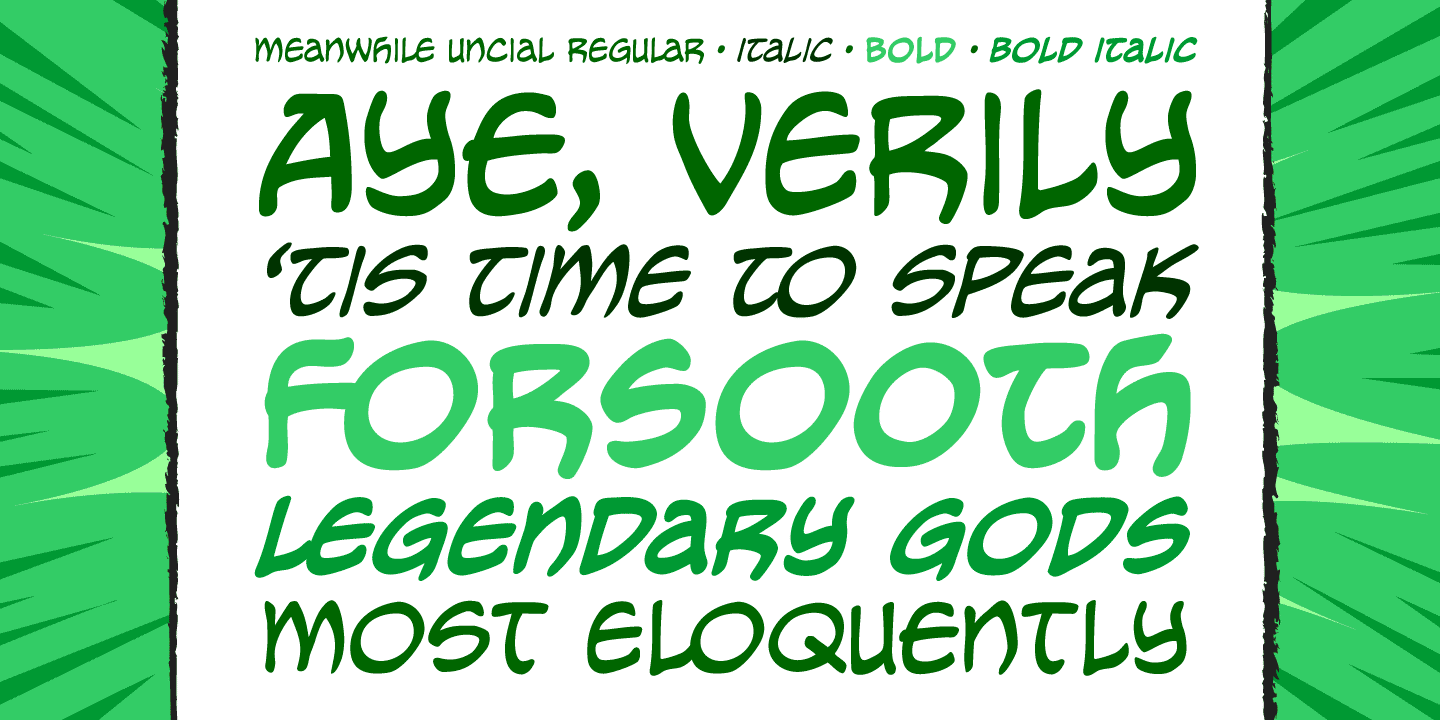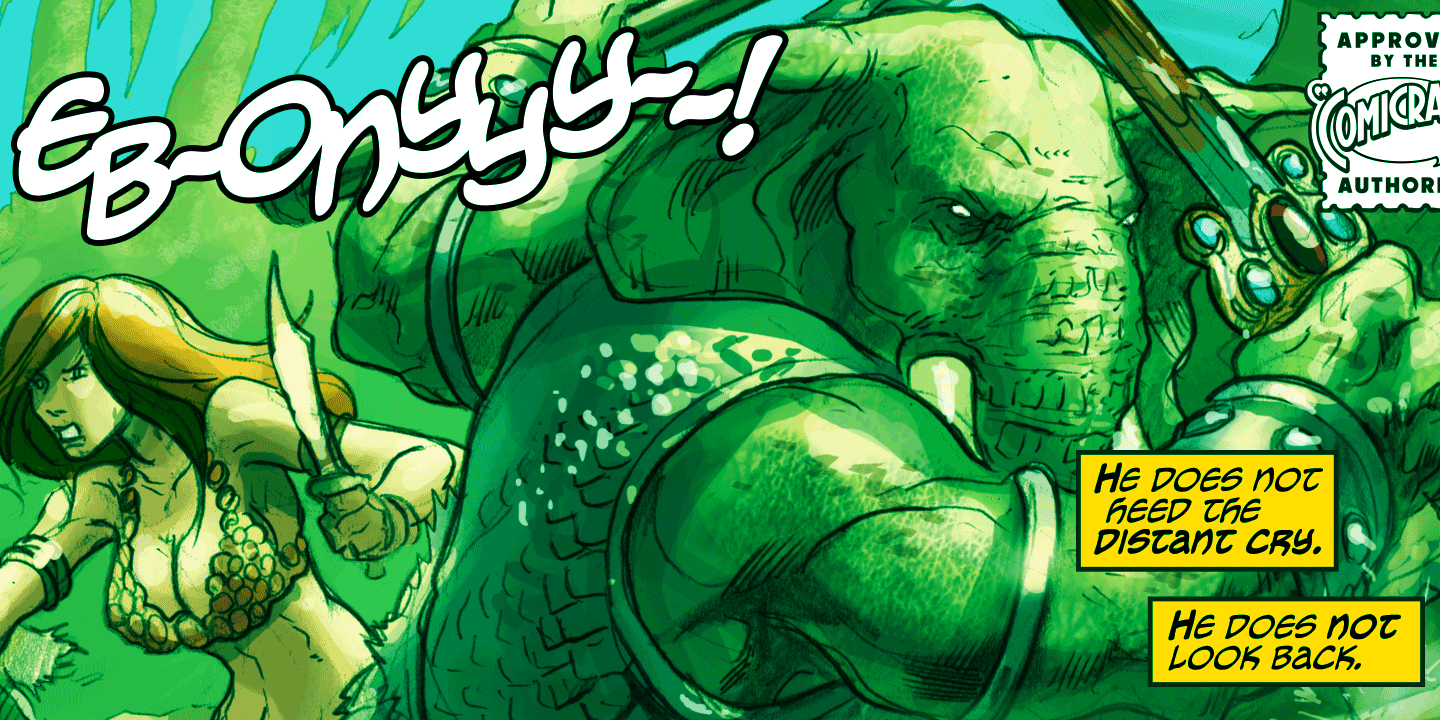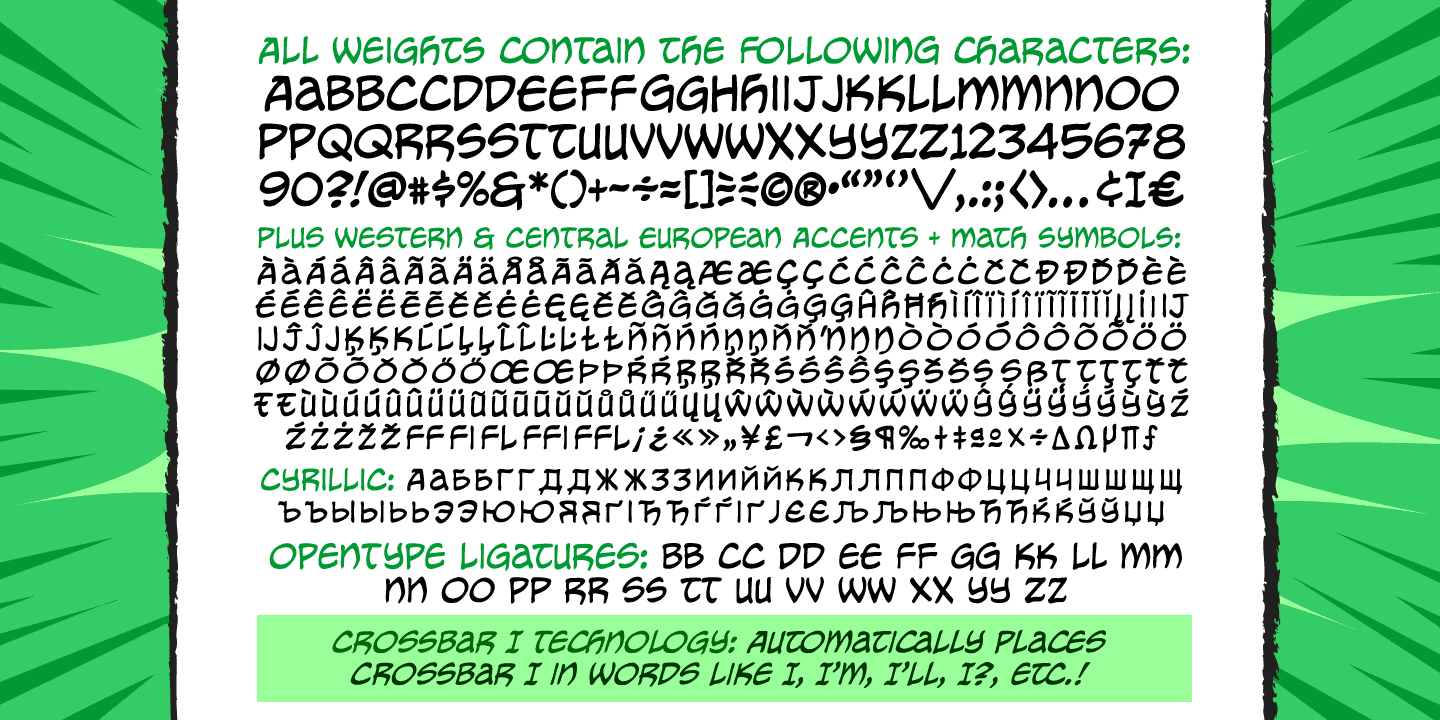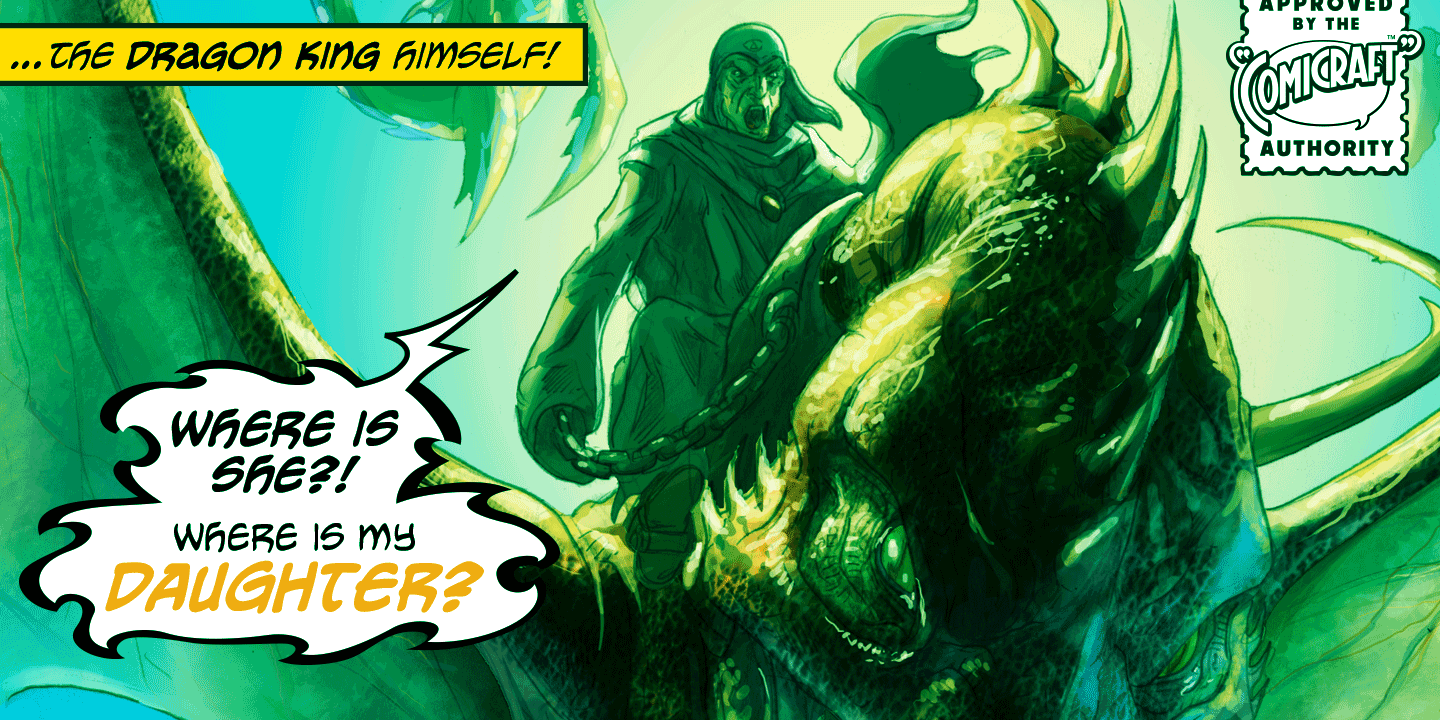
Meanwhile Uncial
Font Family by Comicraft Fonts
Buy NowAye! Verily ‘twould seem 'tis time for thee to speak in the majuscule language of legendary gods! Yea, thou shalt speak most eloquently in the style and manner of many a pseudo-Shakespearian Bard. Forsooth, thine utterances such as “HAVE AT THEE, VILE VILLAIN!” shall cause all ye creatures of evil to begone from the hallowed halls of Asgard (or other otherworldly domains of the gods).
Forsooth, Meanwhile Uncial is a Capital Font, suitable for Gods of Thunder, Mischief or e'en Warriors Three!